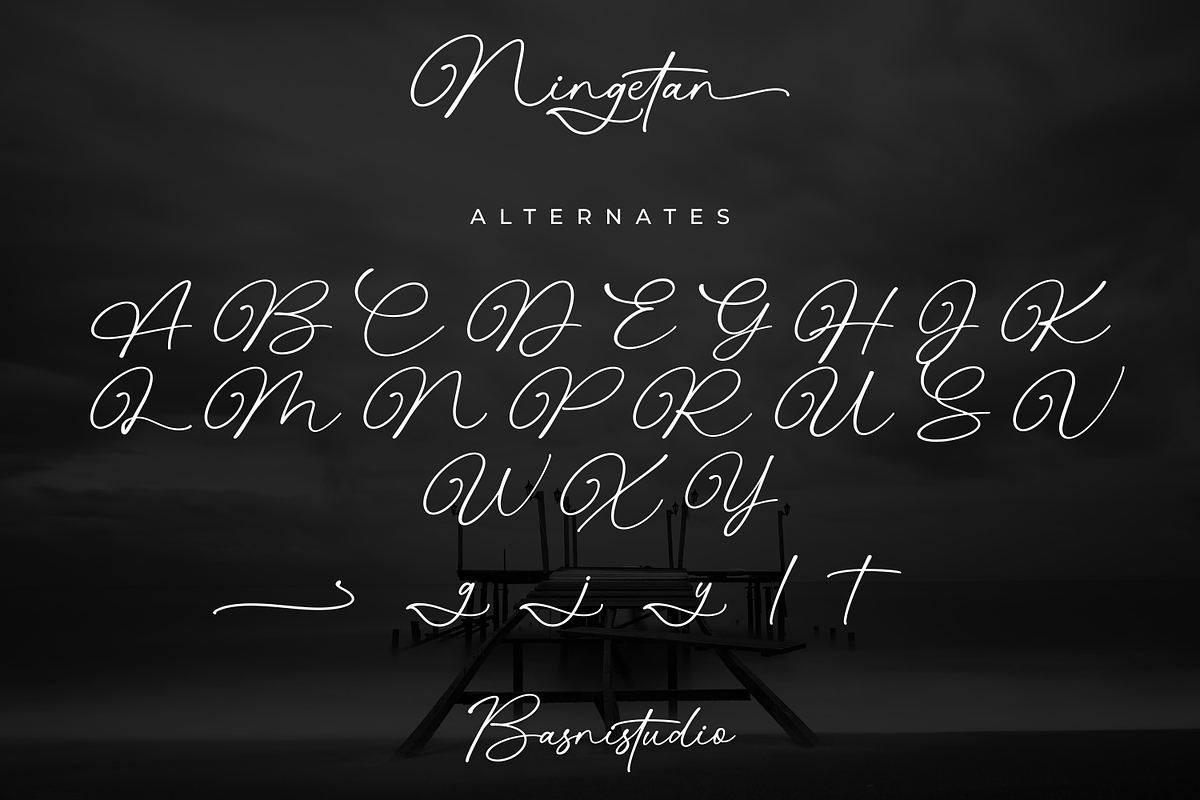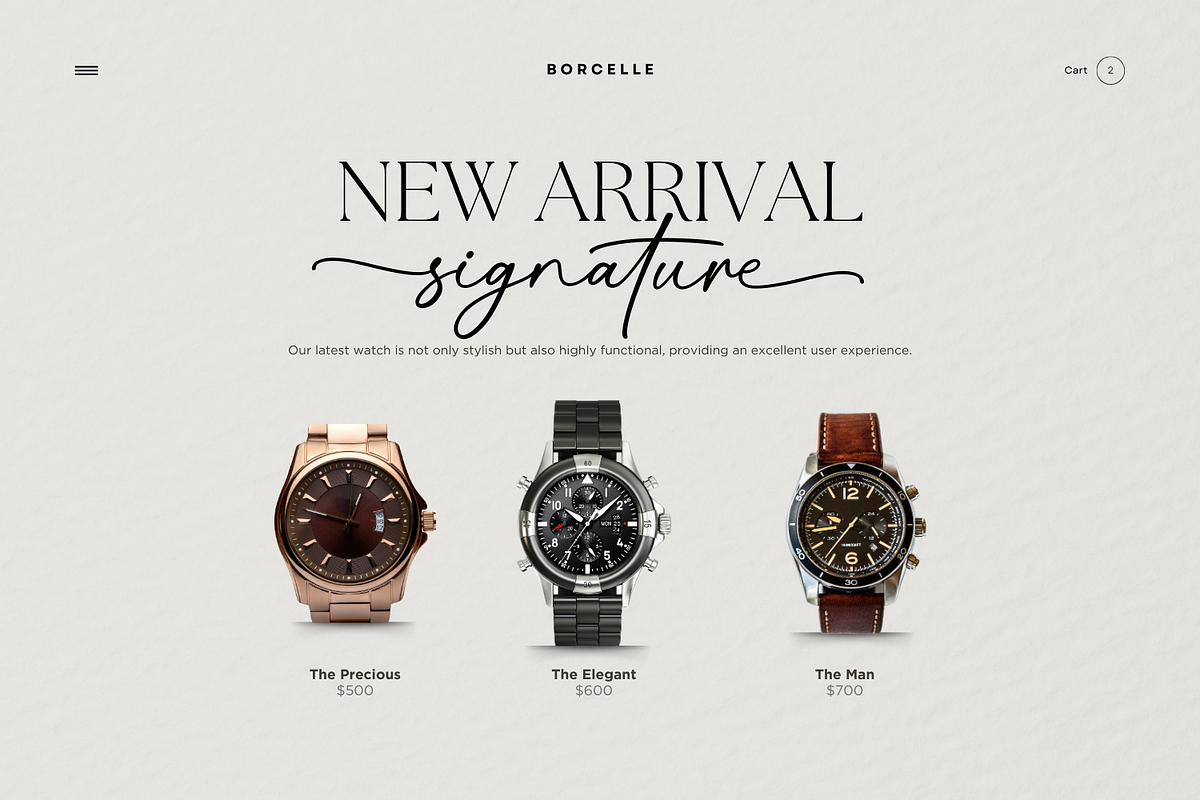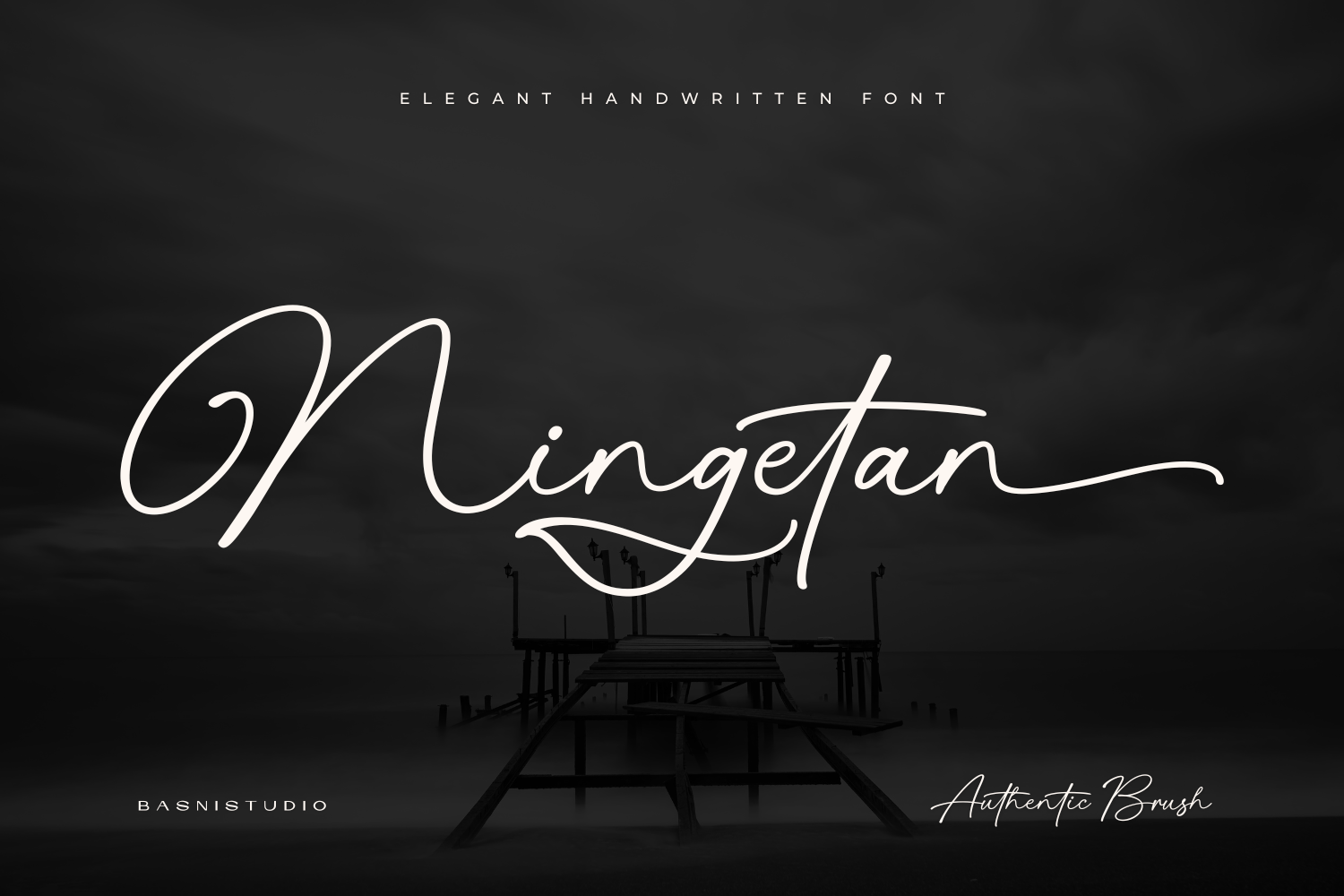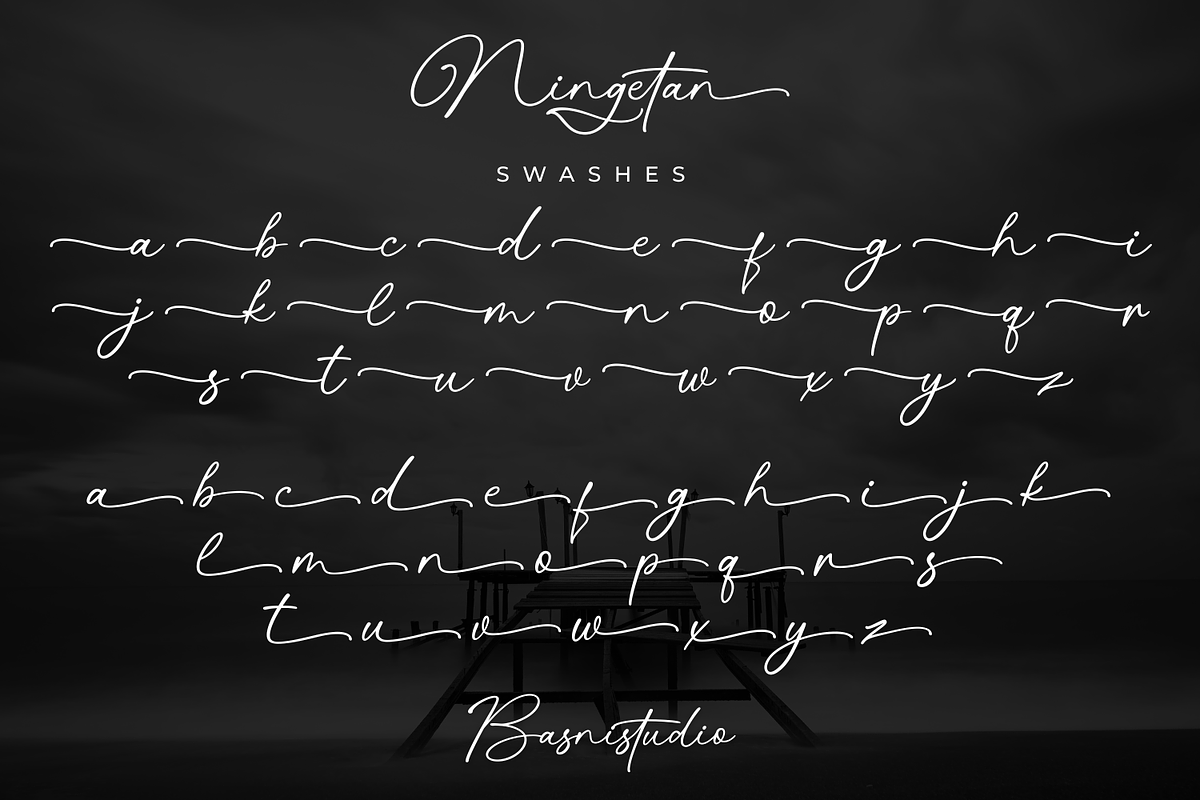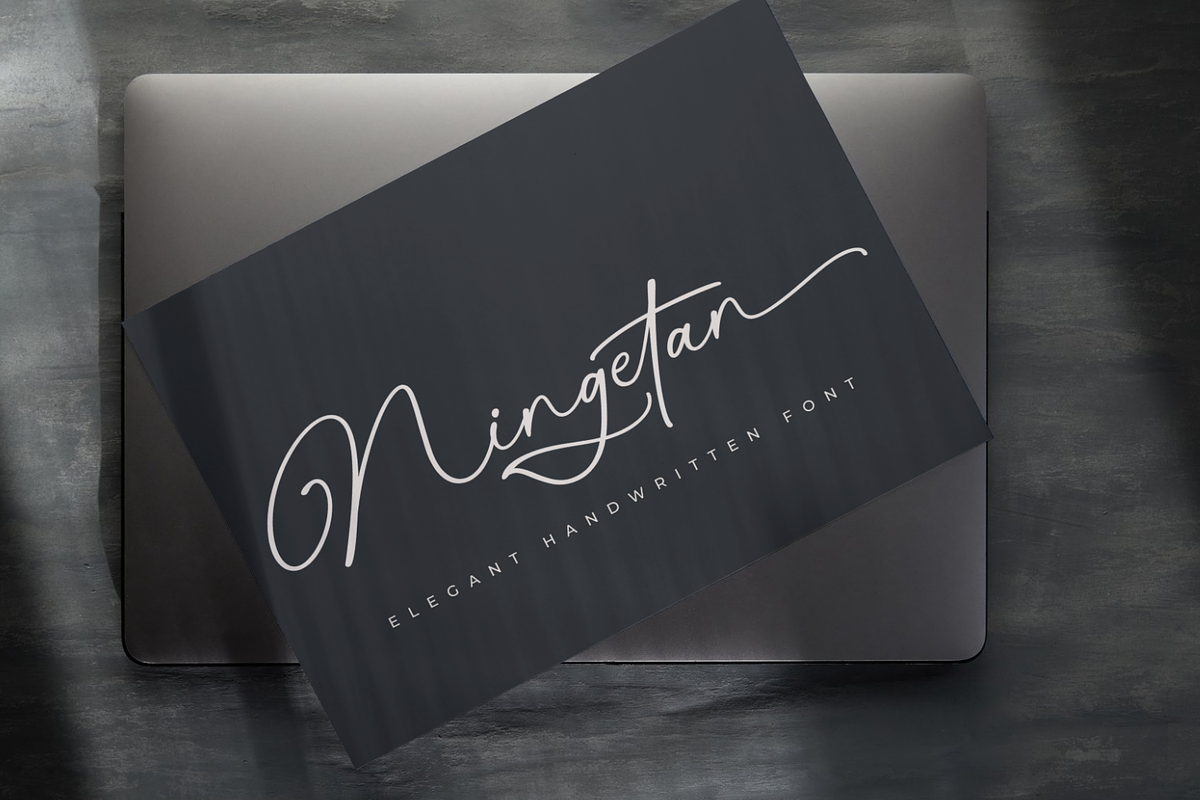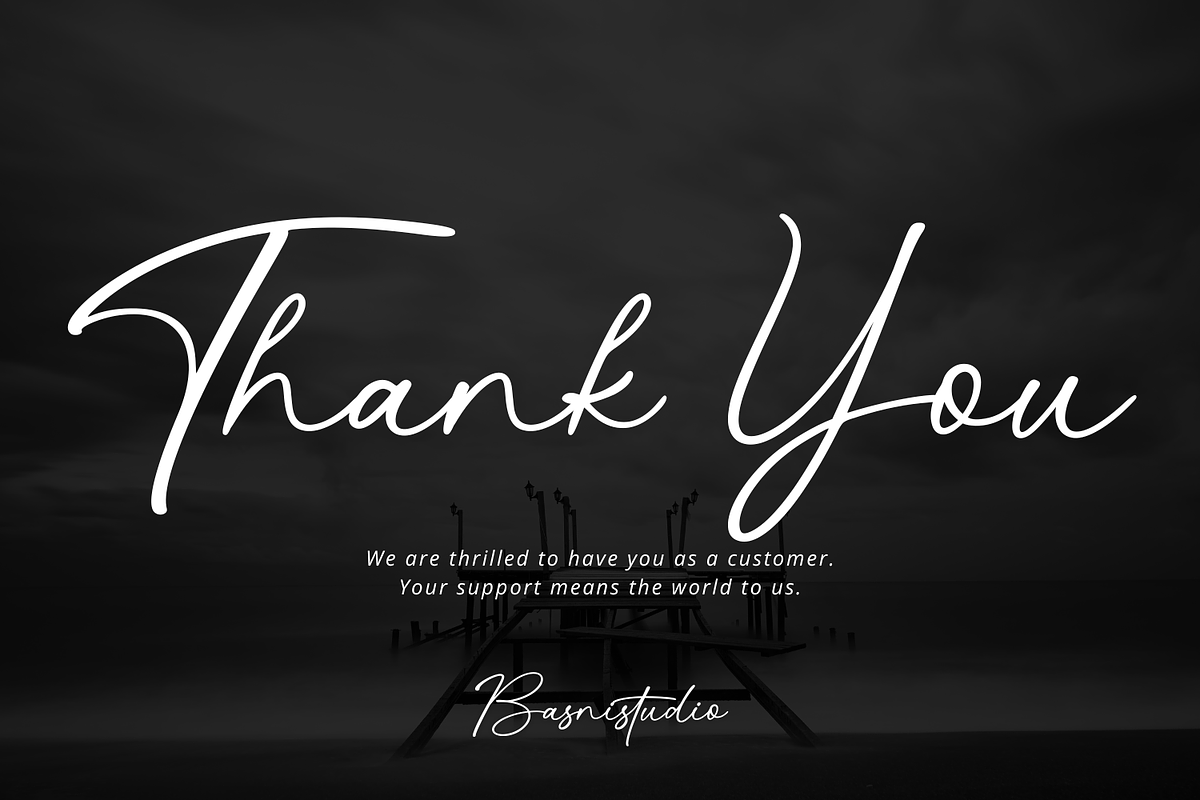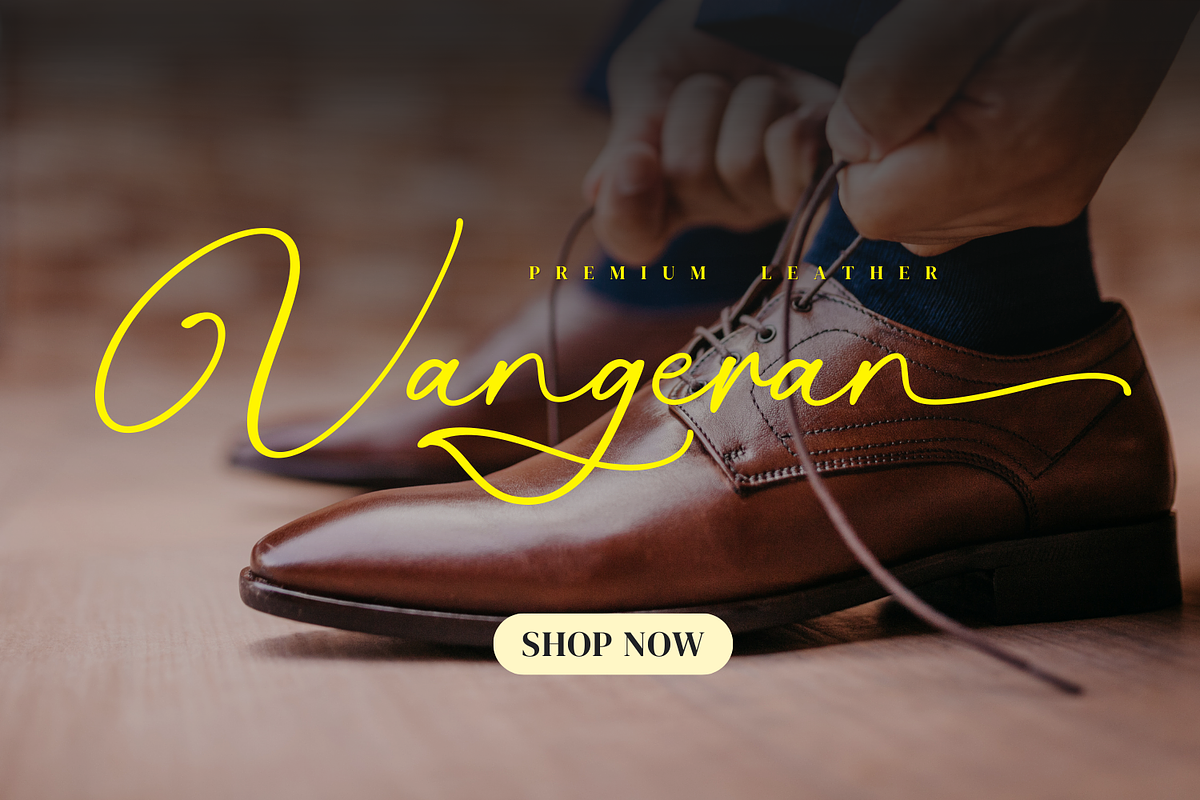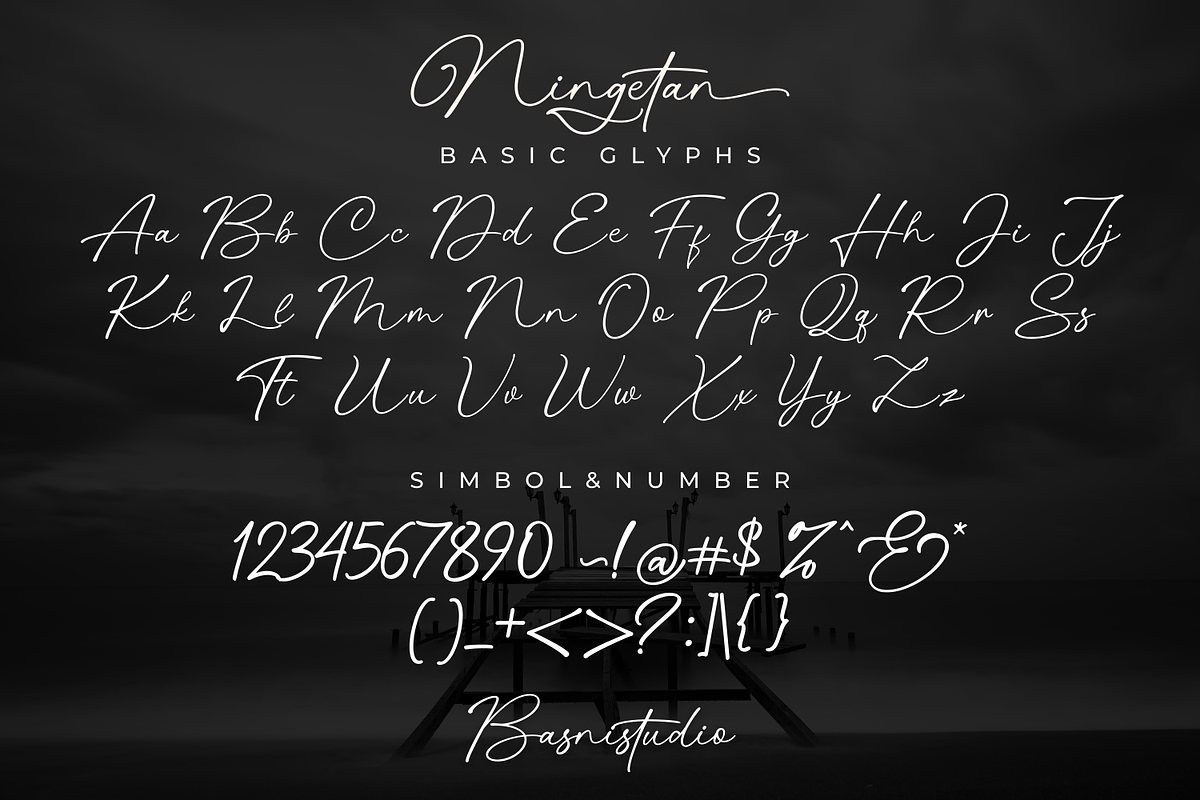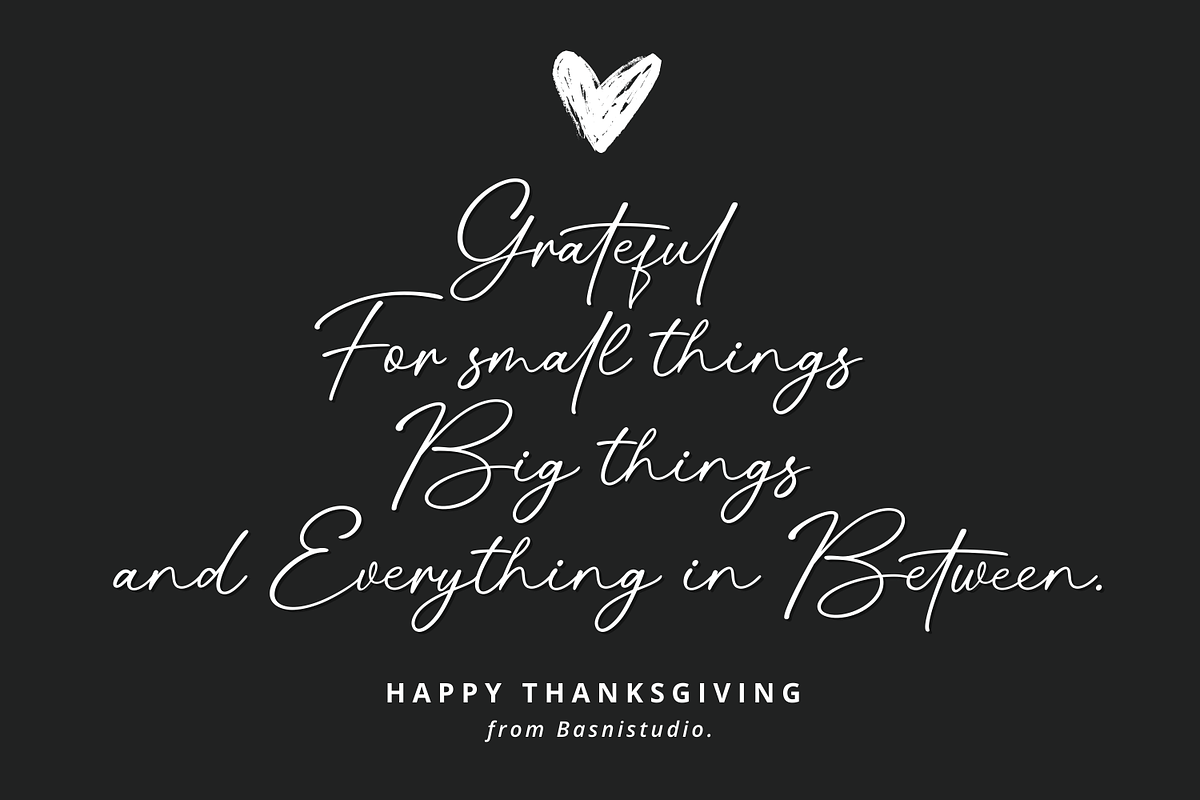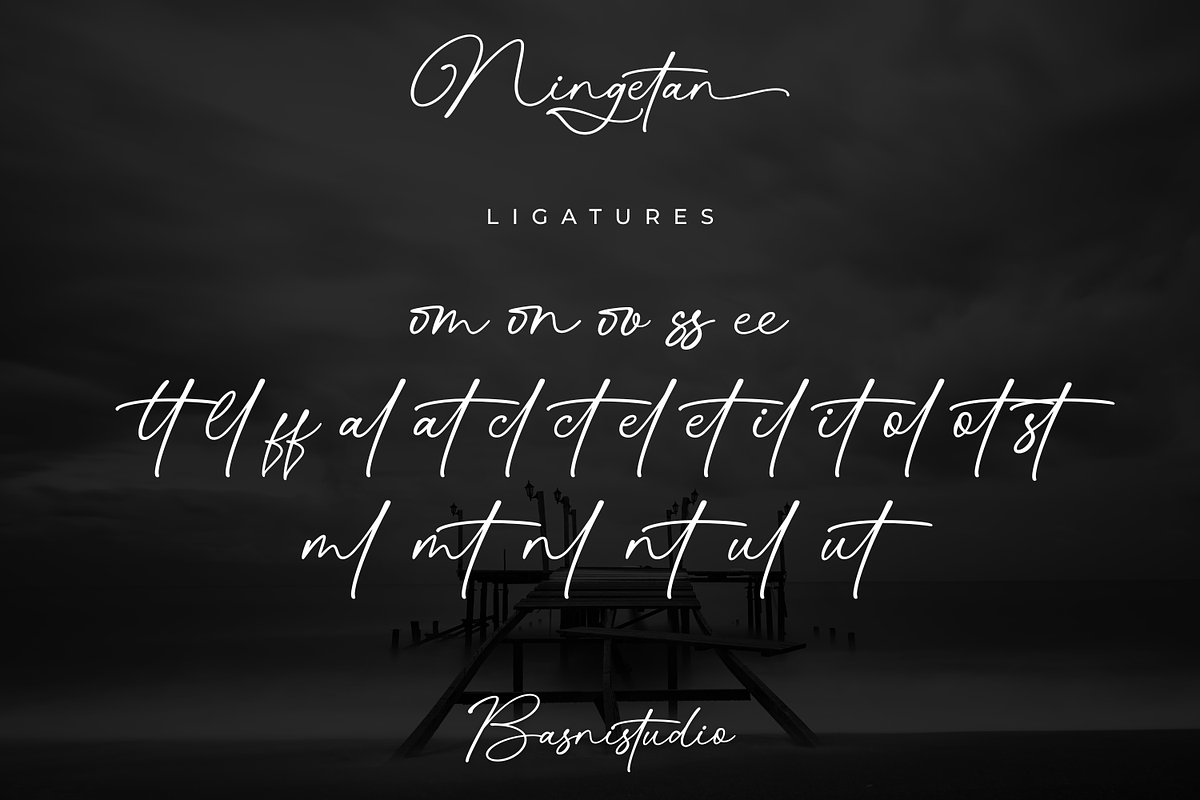
Ningetan Handwritten Font
Introducing Ningetan Elegant Handwritten Font Design with a luxurious character. Every letter is carefully crafted to deliver a polished and professional look.
Ideal for branding, product packaging, social media, and magazine design, it’s the perfect choice for brands that want to stand out with subtle elegance.
What’s Included: Uppercase & lowercase letters Ligature & Alternates Swashes Numbers & punctuation Multilingual Support ( Support for 90 languages )